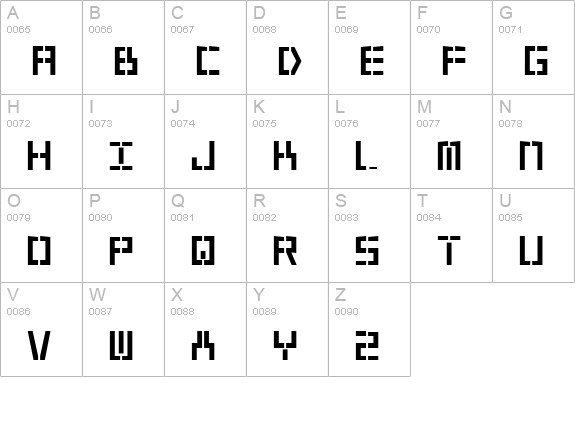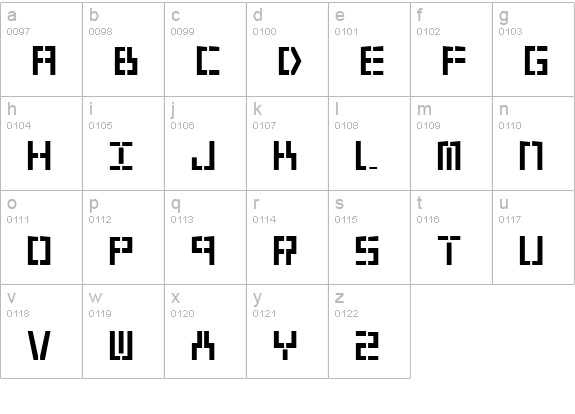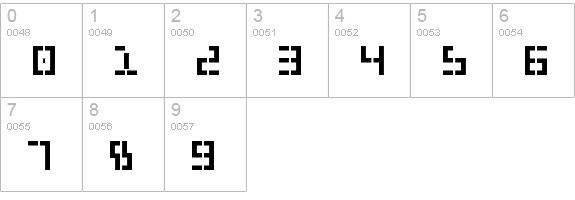
Year 2000 Bold is a strong, high-contrast variant in the Year typeface family \xE2\x80\x94 well suited to headlines, attention-grabbing titles, and strong calls-to-action.
The Year 2000 Bold font is a modern and stylish typeface that exudes confidence and sophistication. Its bold and sleek design makes it perfect for headlines, titles, and other attention-grabbing text. The Year 2000 Bold font is versatile and can be used for a variety of design projects, from posters to logos to social media graphics. Best of all, the Year 2000 Bold font is available for free download at FontsMarket.com. This means that you can easily add this eye-catching font to your collection without having to spend a dime. Don't miss out on the opportunity to enhance your designs with the Year 2000 Bold font – download it today and take your projects to the next level!